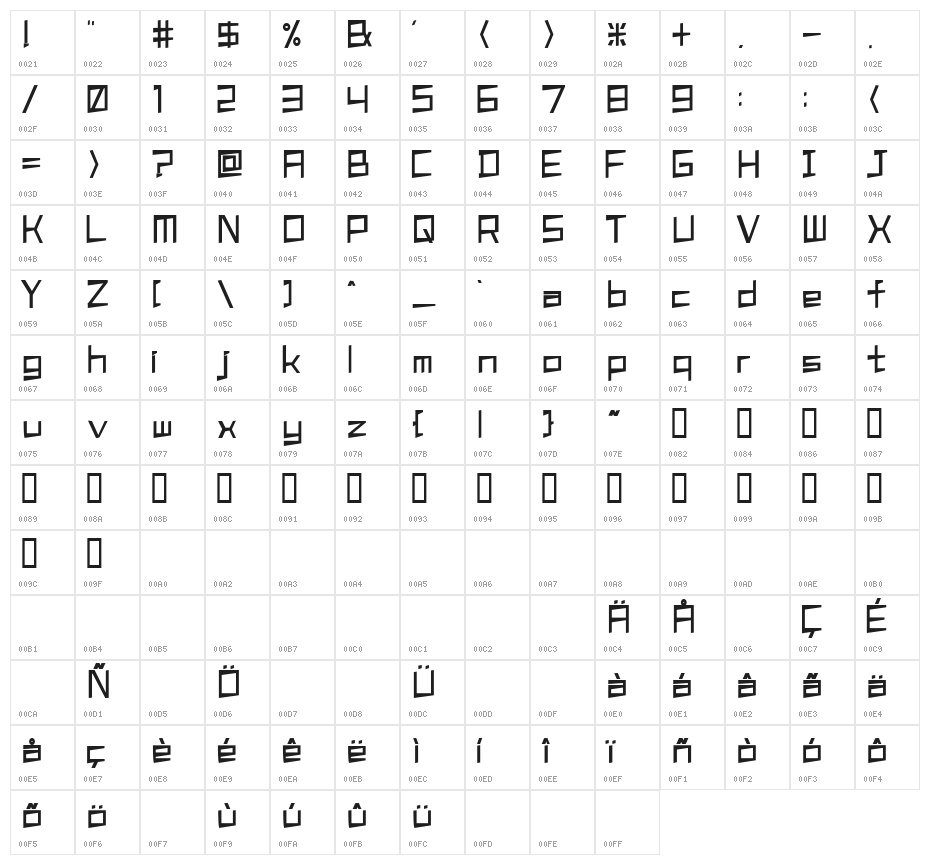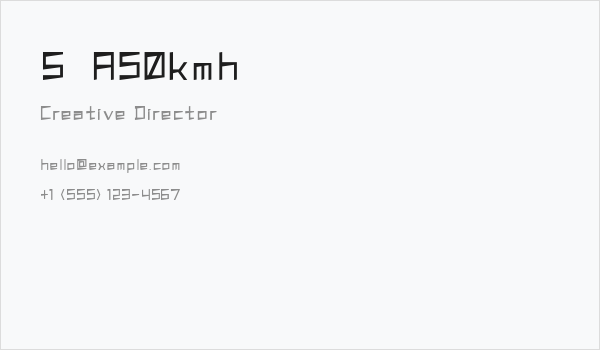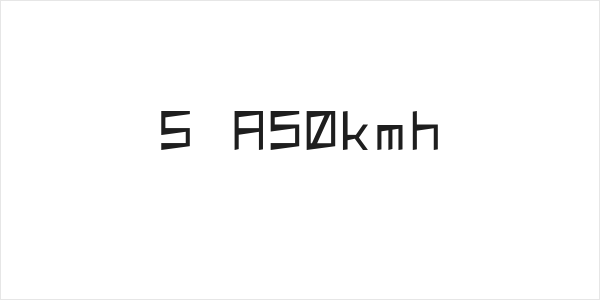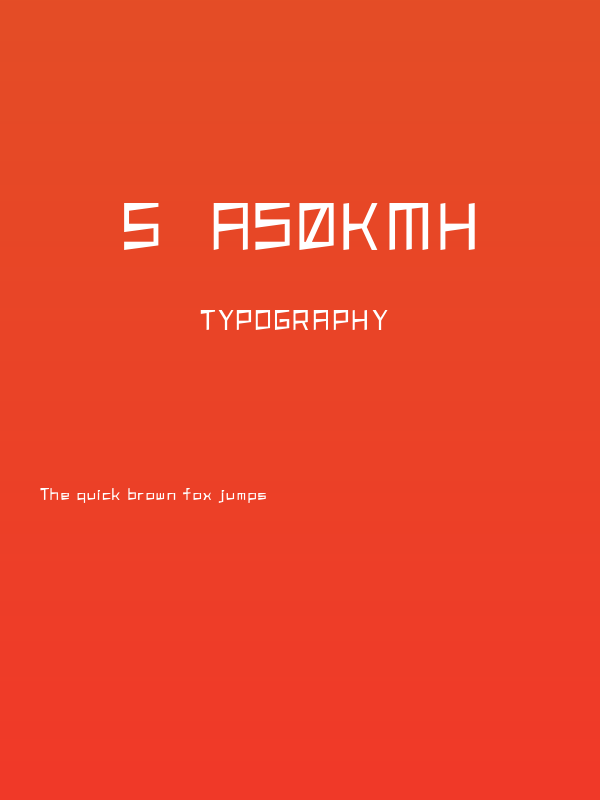
S A50kmh Font
This font features a bold, angular design with a futuristic and geometric aesthetic. The characters are constructed with sharp edges and distinct angles, giving it a dynamic and modern appearance. The uppercase and lowercase letters maintain a consistent style, with a slight slant that adds to its energetic feel. The numerals are equally bold and angular, ensuring readability while maintaining the overall theme. Special characters are designed to complement the letters, with similar angular and geometric traits. This font is ideal for projects that require a strong, modern look.
Proposed ProjectsIdeal for technology branding, sci-fi posters, video game titles, and modern advertising.